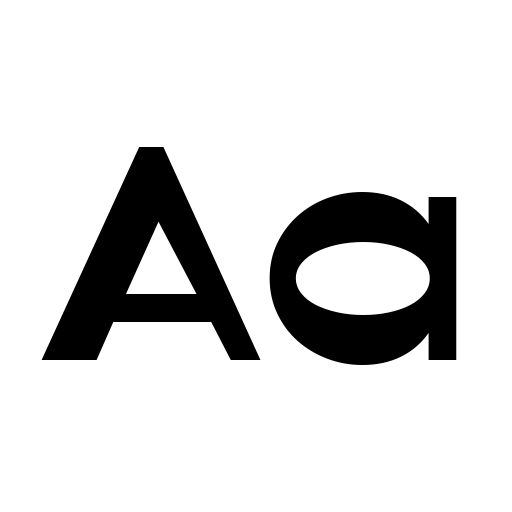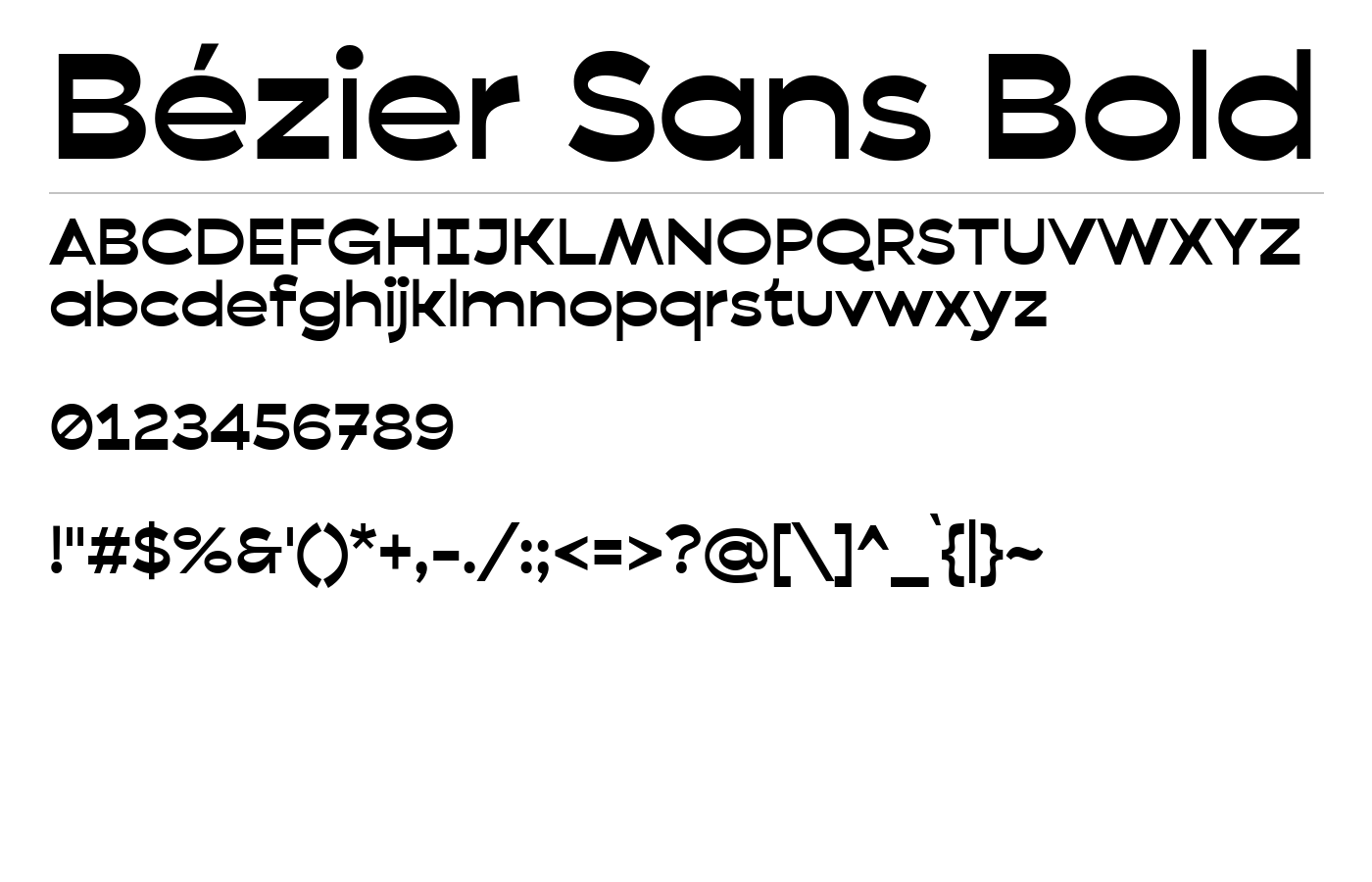
Bezier Sans Bold is a modern, geometric sans serif font with a bold weight and clean, rounded shapes that give it a friendly yet professional look. Its wide x-height and simple, uniform strokes make it highly legible and versatile, ideal for branding, headlines, and digital use where clarity and impact are key. This font works well in contemporary designs that want to balance approachability with confidence.
Bezier Sans Font
About Bezier Sans Font
| Font family | Bezier Sans Font |
| Designer | Alexander Pravdin |